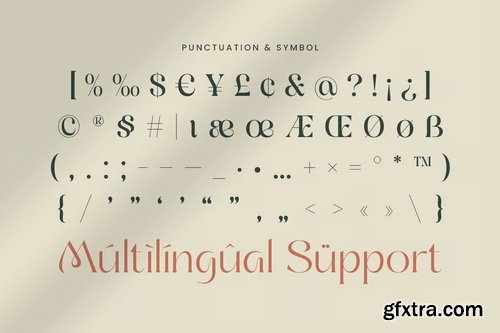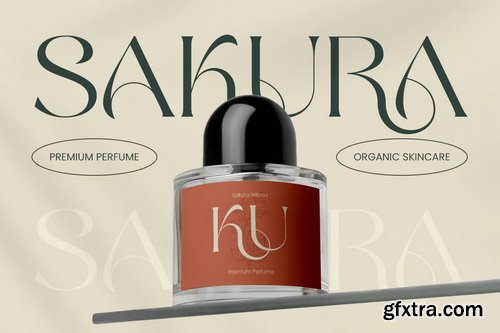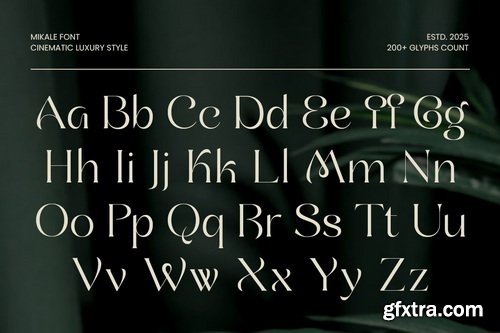
Mikale Cinematic Luxury Font
Mikale is a cinematic luxury font crafted to deliver elegance, prestige, and modern refinement. Its sleek curves and high-contrast strokes are ideal for fashion branding, luxury packaging, and cinematic title sequences. Designed for those who appreciate timeless sophistication, Mikale draws inspiration from high-fashion magazines and film posters. It brings a graceful rhythm to your design with stylish alternates and polished details that elevate every layout. Whether you're working on branding, print, or screen, Mikale offers the ideal balance of bold impact and upscale beauty.